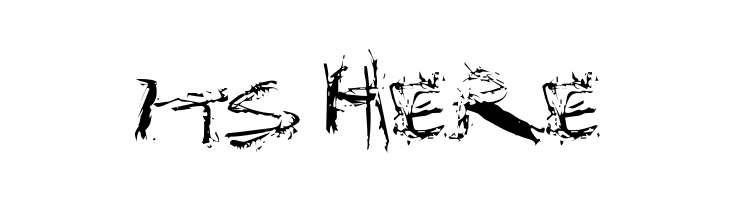
RustproofBody-Regular Font
- Font: RustproofBody-Regular
( Fonts by Typography in Decay )
A sketch-inspired font with geometric, hand-drawn elements and a technical aesthetic.